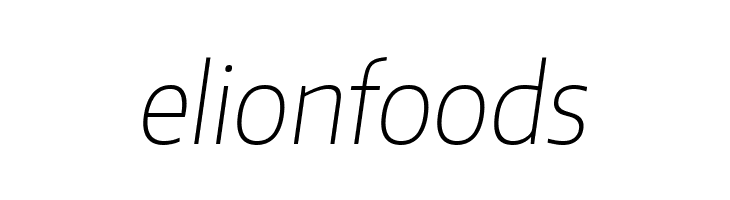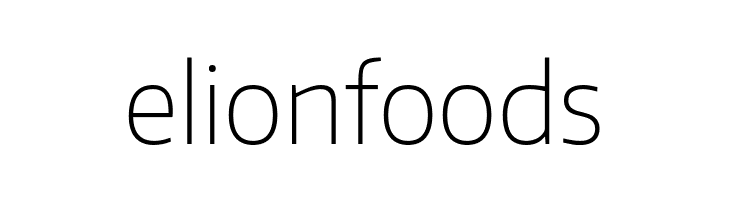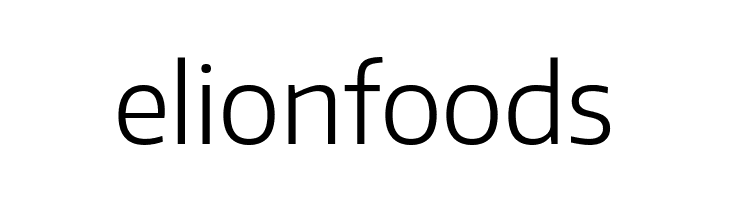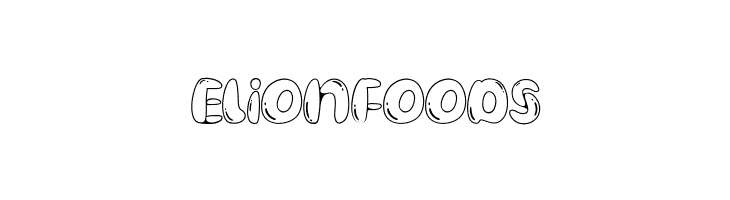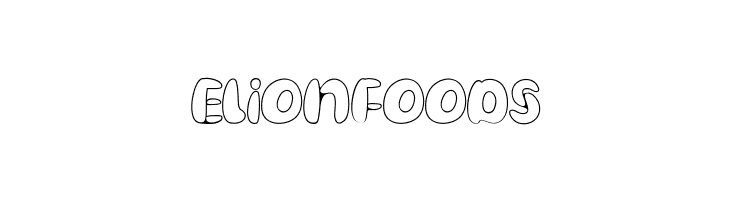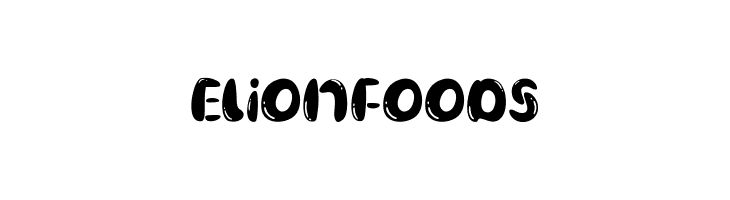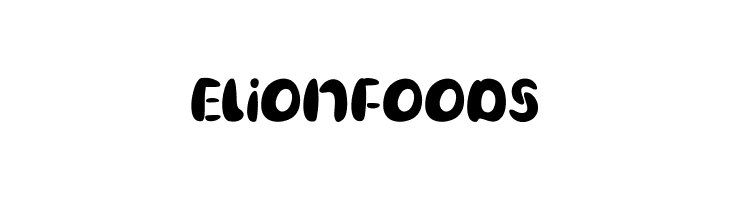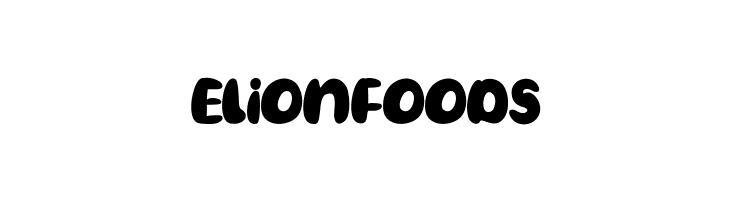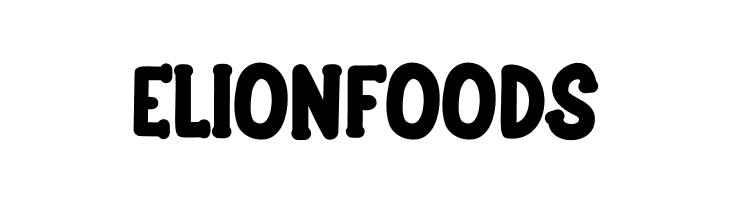
A sleek, modern, and thin italic font with a minimalist aesthetic.
A thin, modern sans-serif font with a sleek and minimalist style.
A bold, modern sans-serif font with strong geometric shapes.
A modern, light sans-serif font with clean lines and excellent readability.
A playful, balloon-like font with a three-dimensional, whimsical style.
A playful, bubble-like font with hollow interiors and rounded edges.
A playful, balloon-like font with a bold and whimsical style.
A bold, playful font with rounded, bubble-like characters ideal for dynamic designs.
A bold, playful font with rounded, bubble-like characters.
A bold, playful font with rounded edges and decorative cutouts.